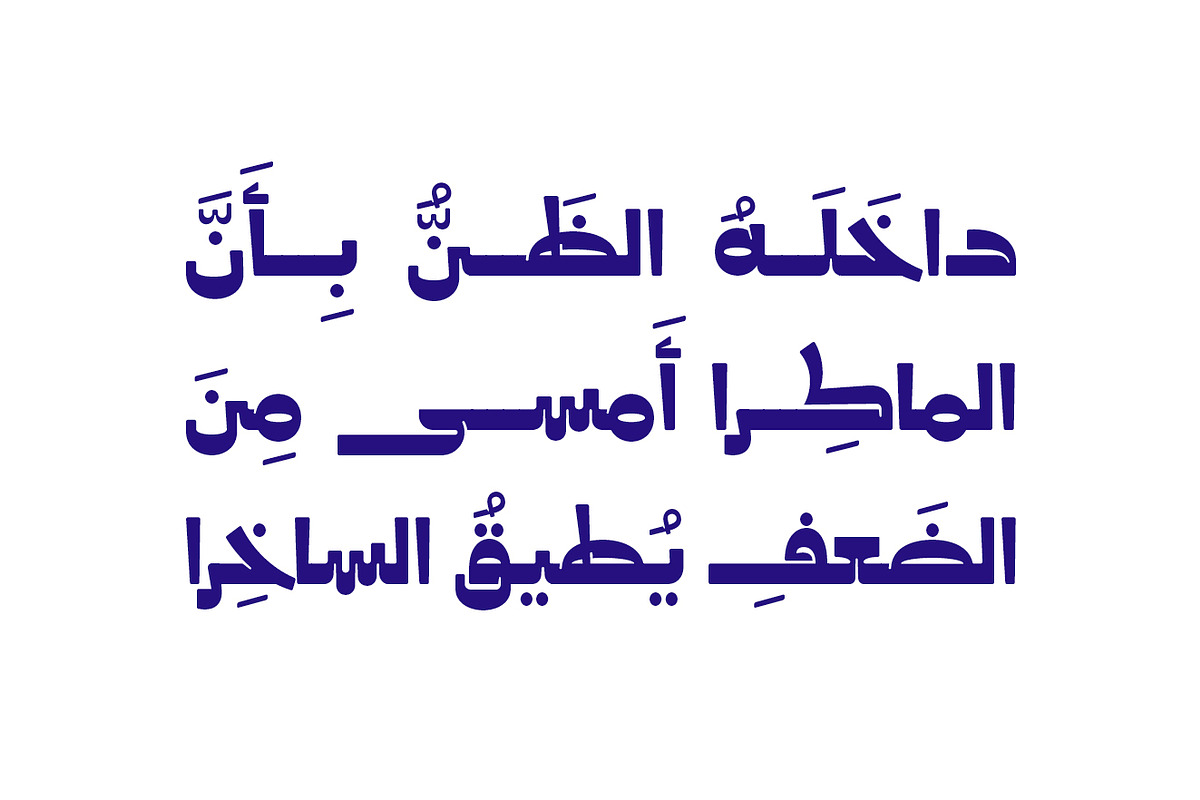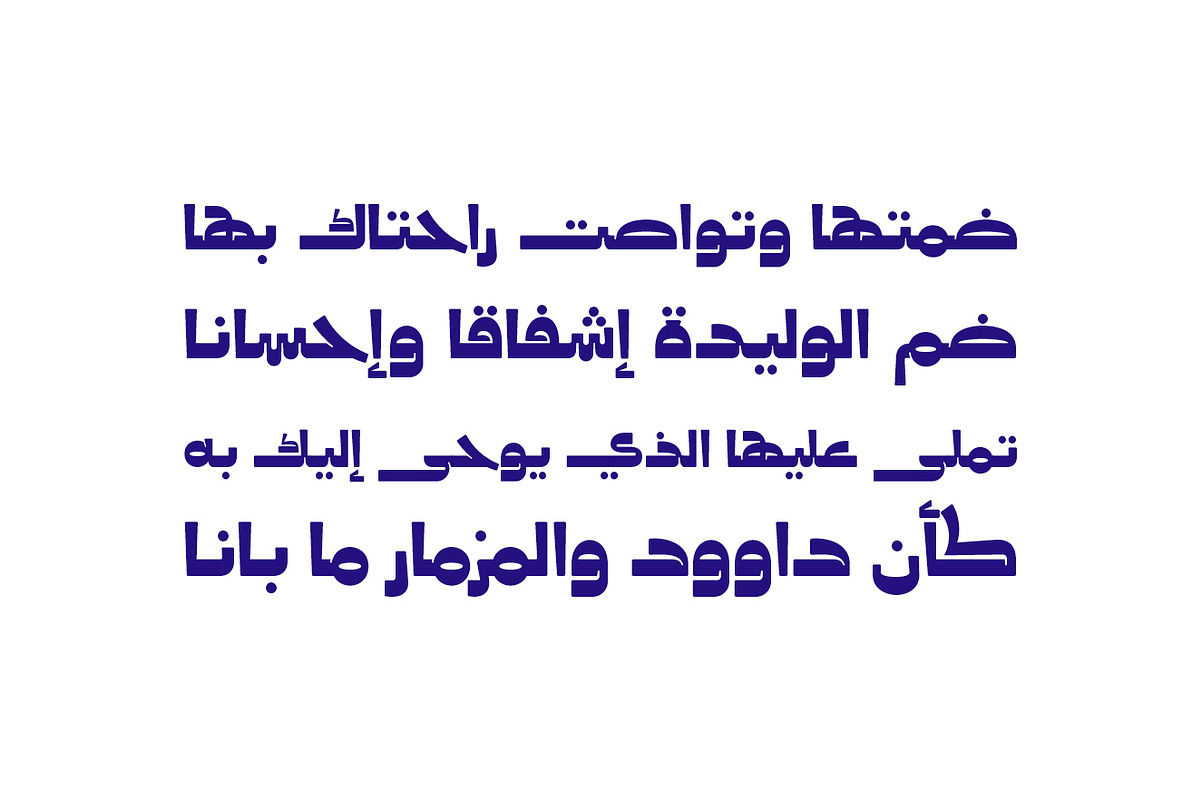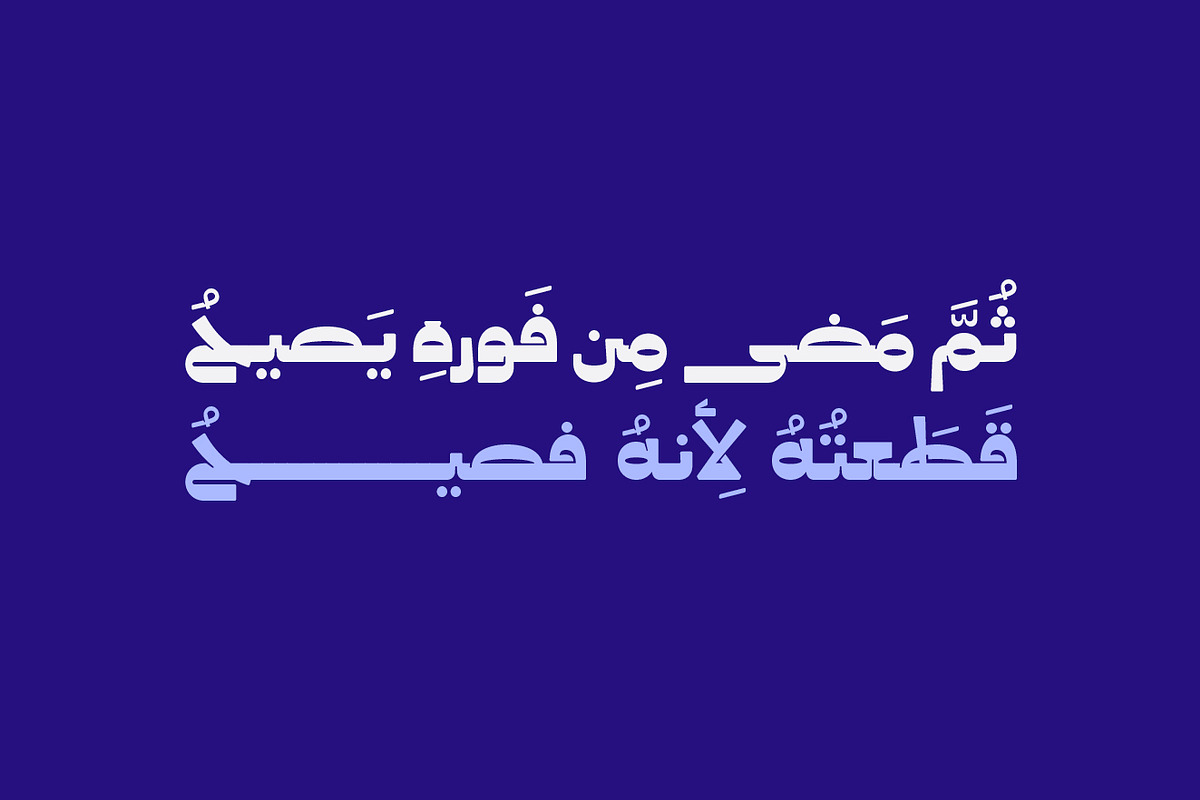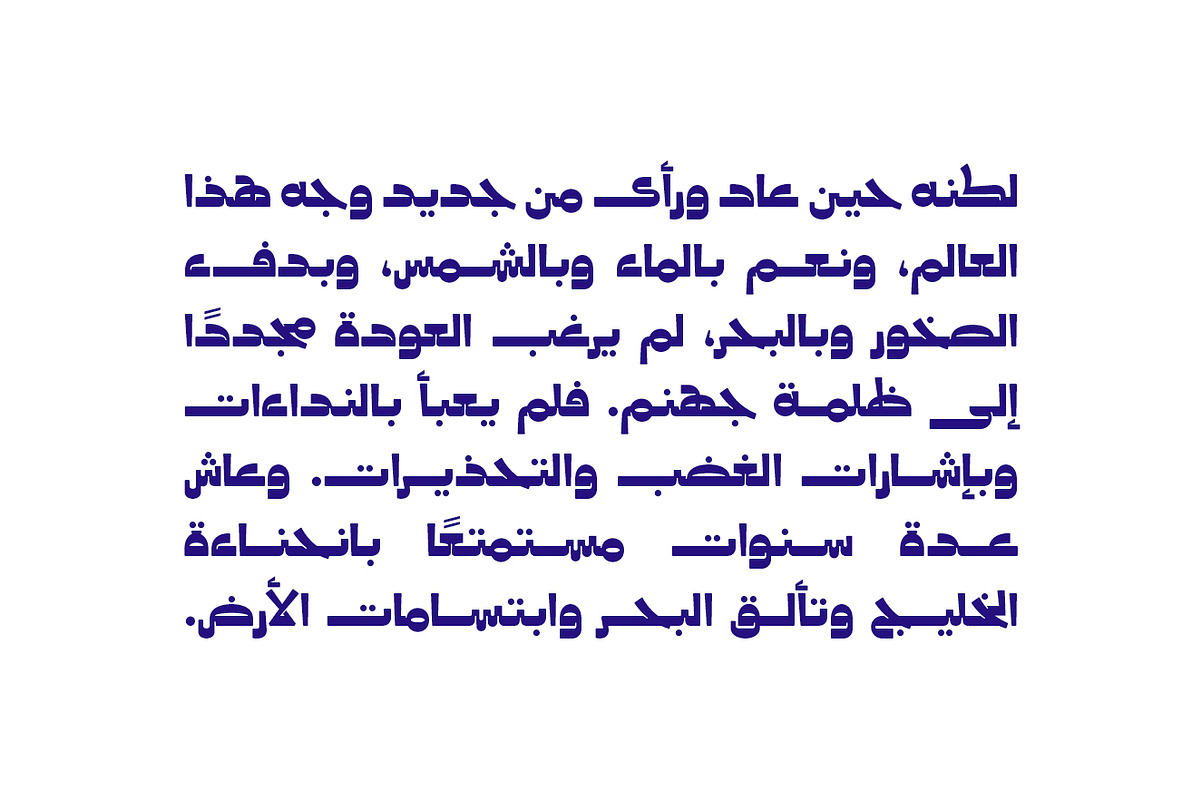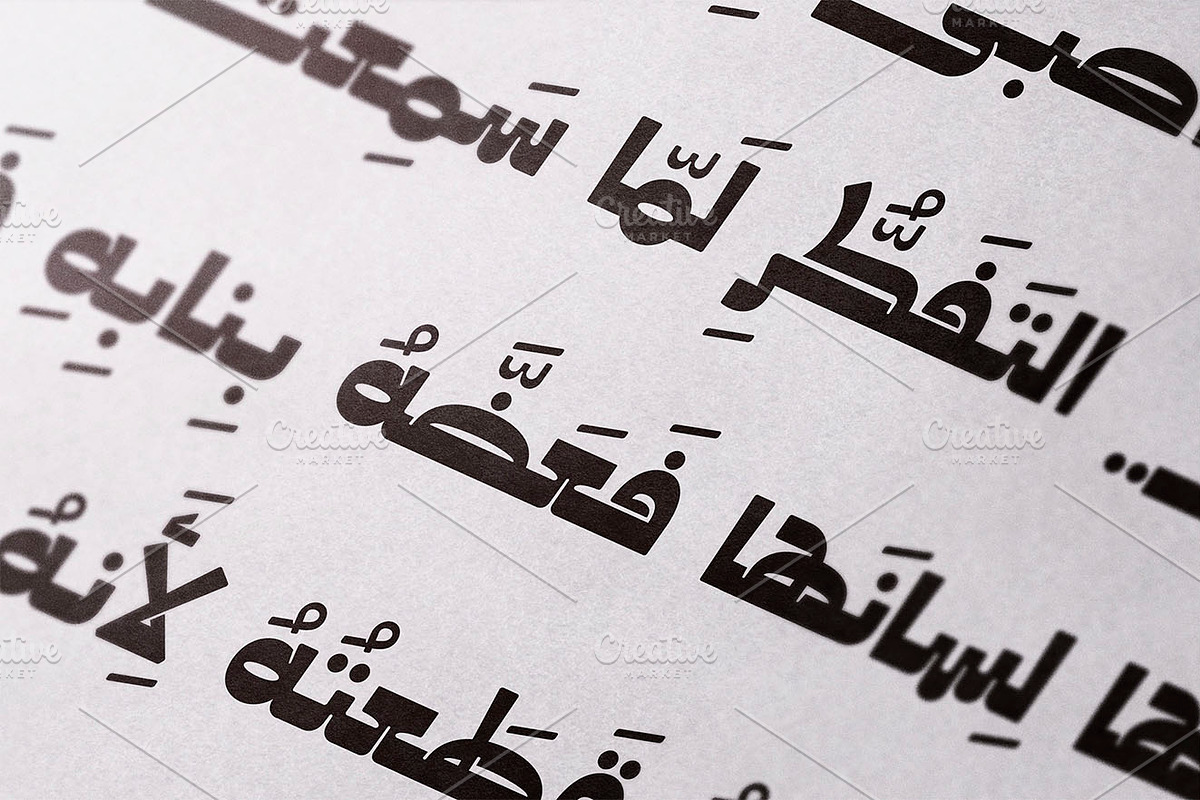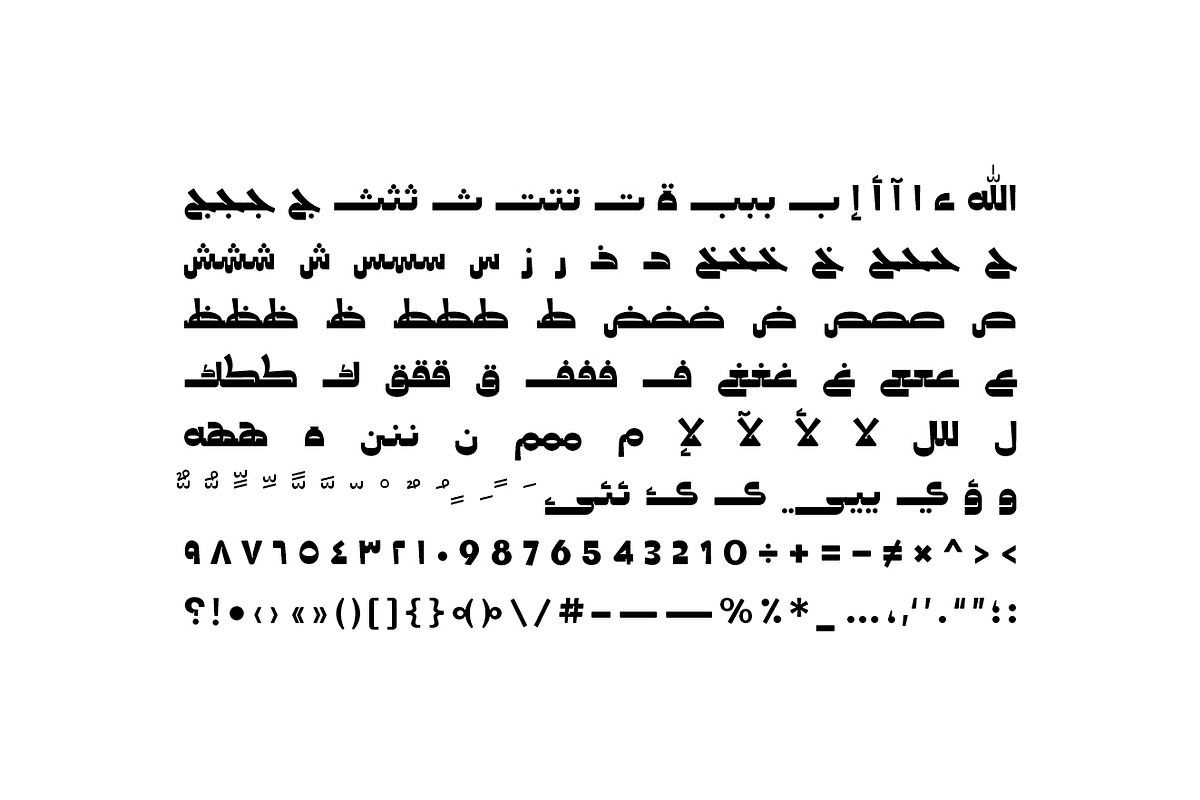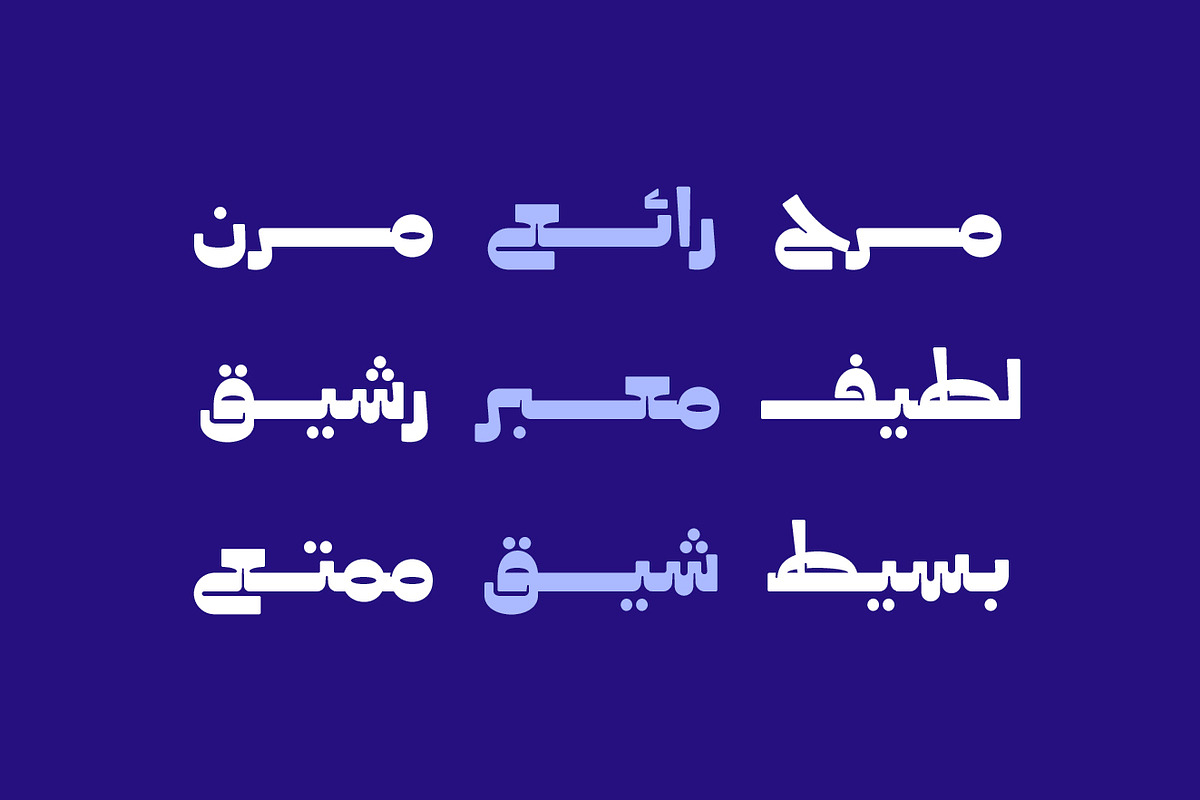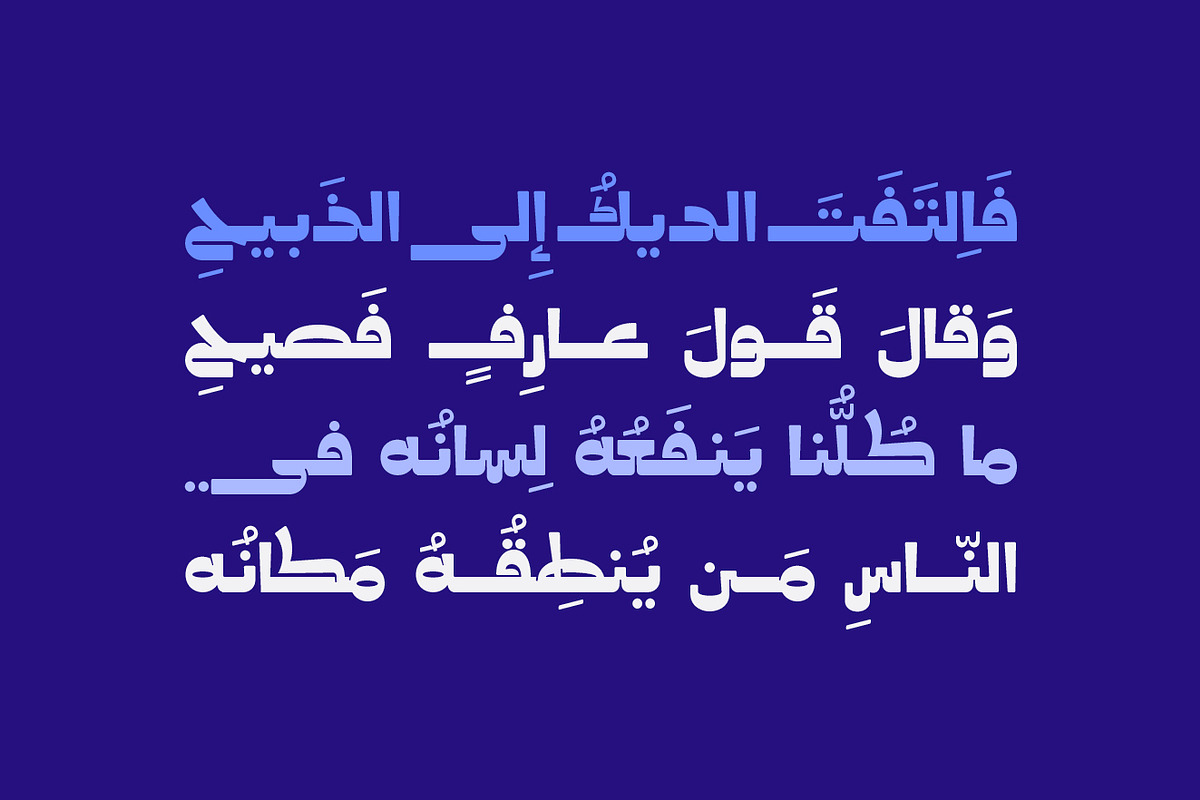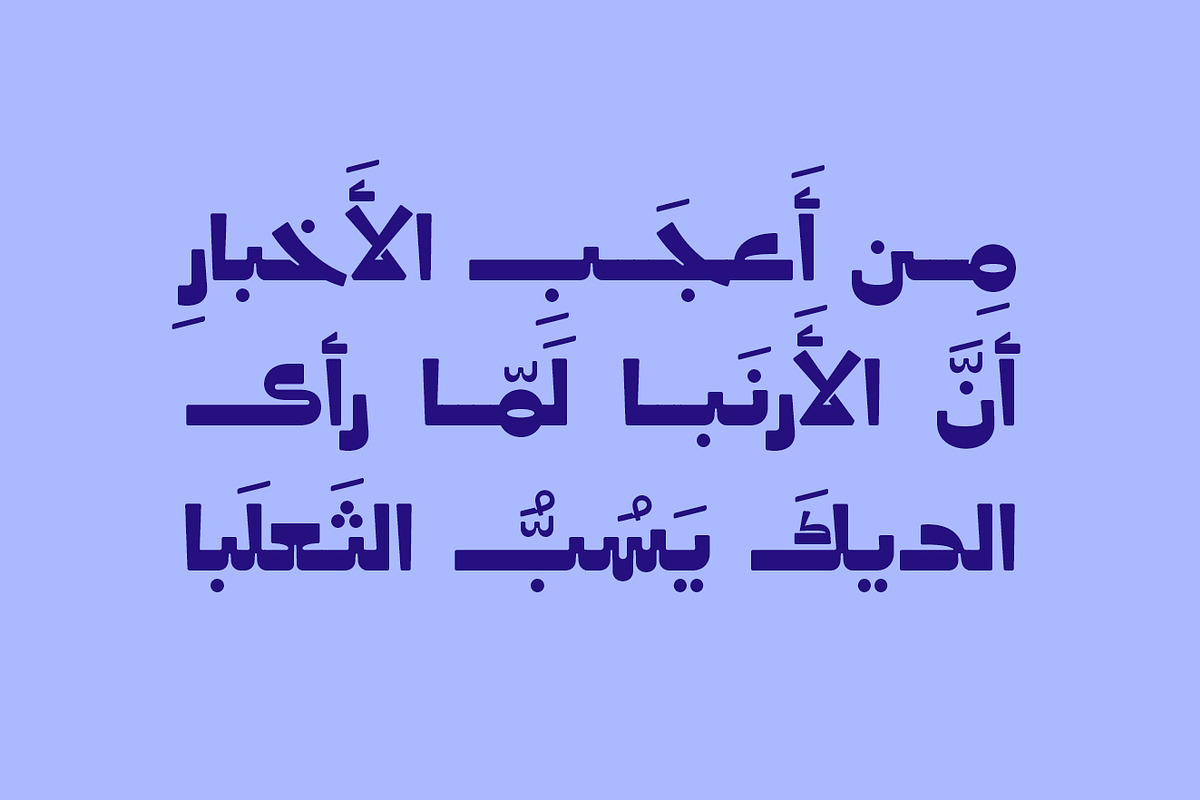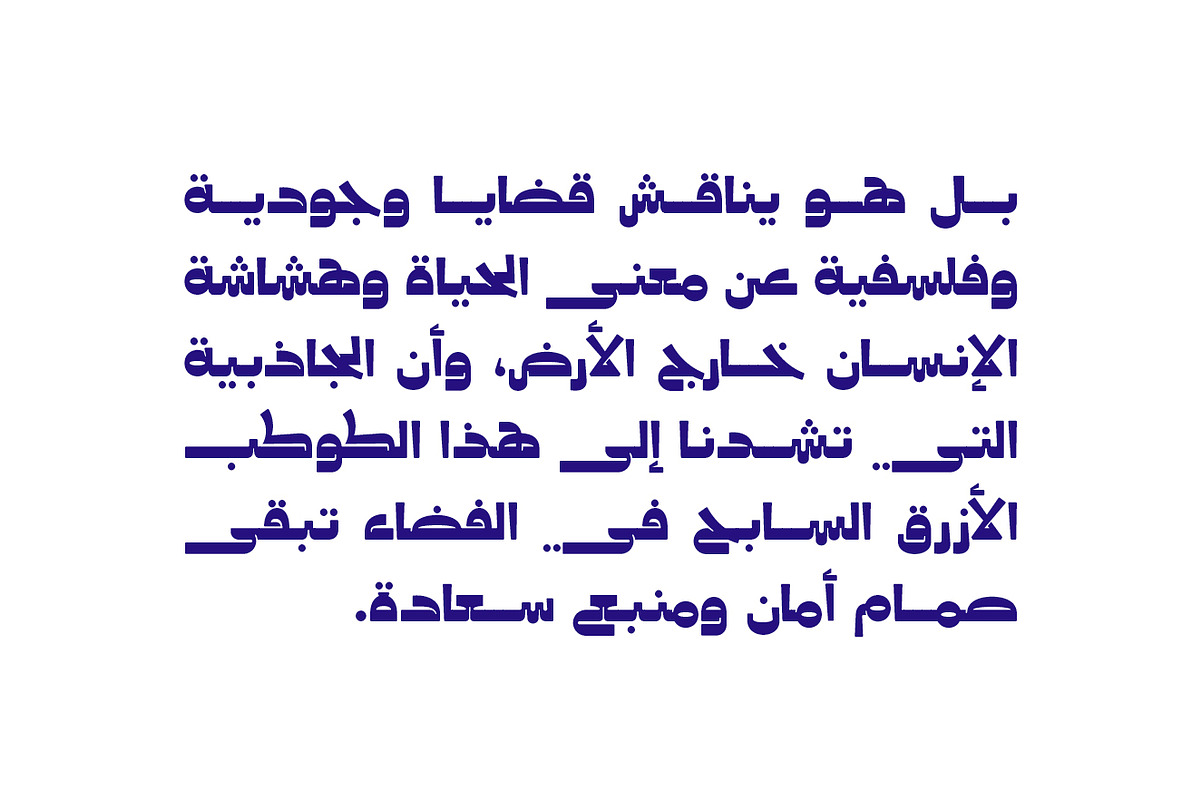
Taroub - Arabic Font
Taroub (the Arabic for 'Jaunty') is an Arabic display font that features dynamic and active letterform design. This font is an excellent choice for a various range of creative projects including publication design, branding and advertising. Taroub supports web, print and mobile applications.